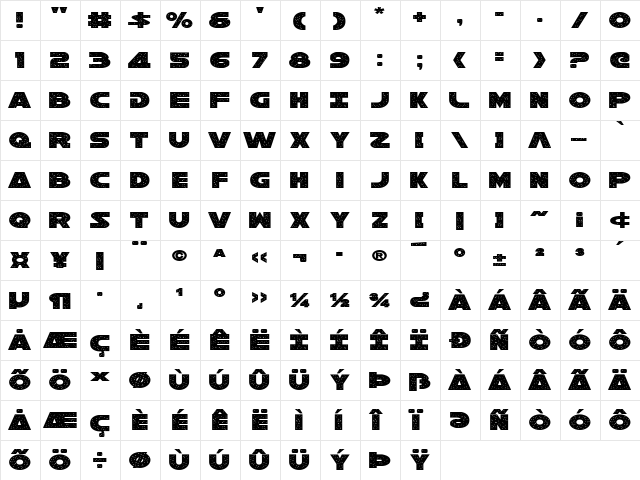
Galaxy 1 Regular
| Designer | Dan Zadorozny |
Design Context for Galaxy 1 Typeface
Galaxy 1 is a composed and adaptable typeface that performs quietly and consistently across a wide range of design contexts.